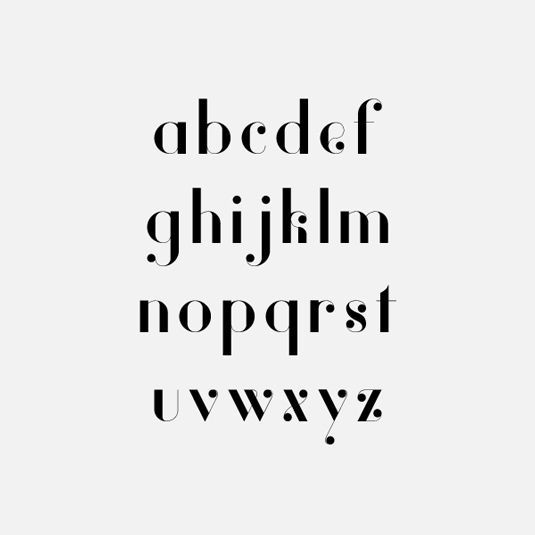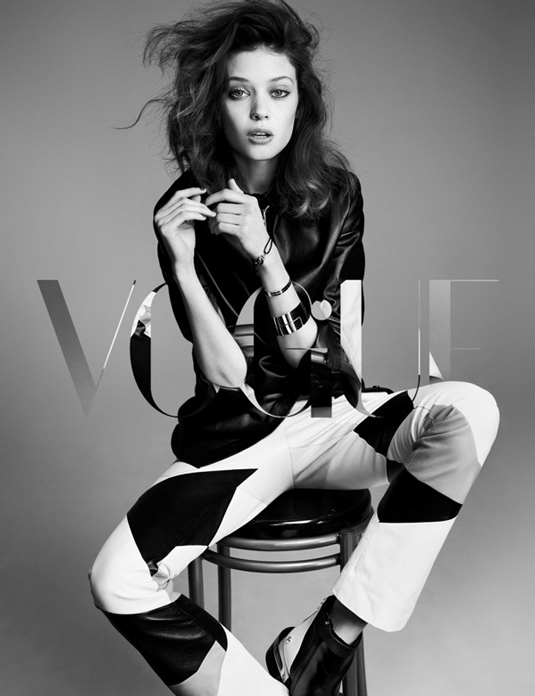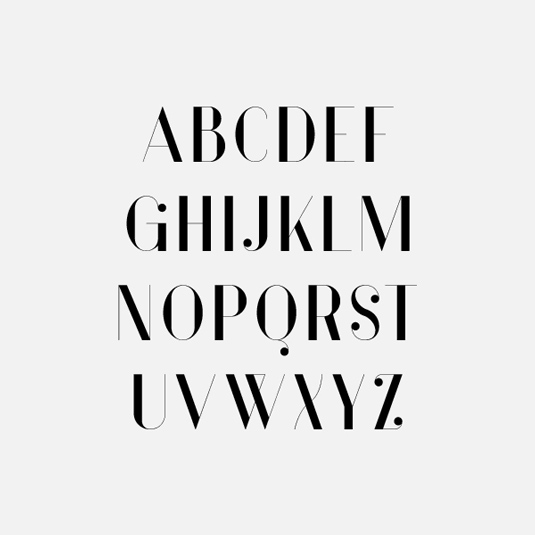
Font of the day: Vanity
Vanity by Hendrick Rolandez
Vanity is a modern, sans serif type family, created by French graphic designer Hendrick Rolandez. The font includes 12 fonts, including light, blod, plain, italic, narrow and wide, and comes complete with a full set of lower and uppercase letters and numbers.